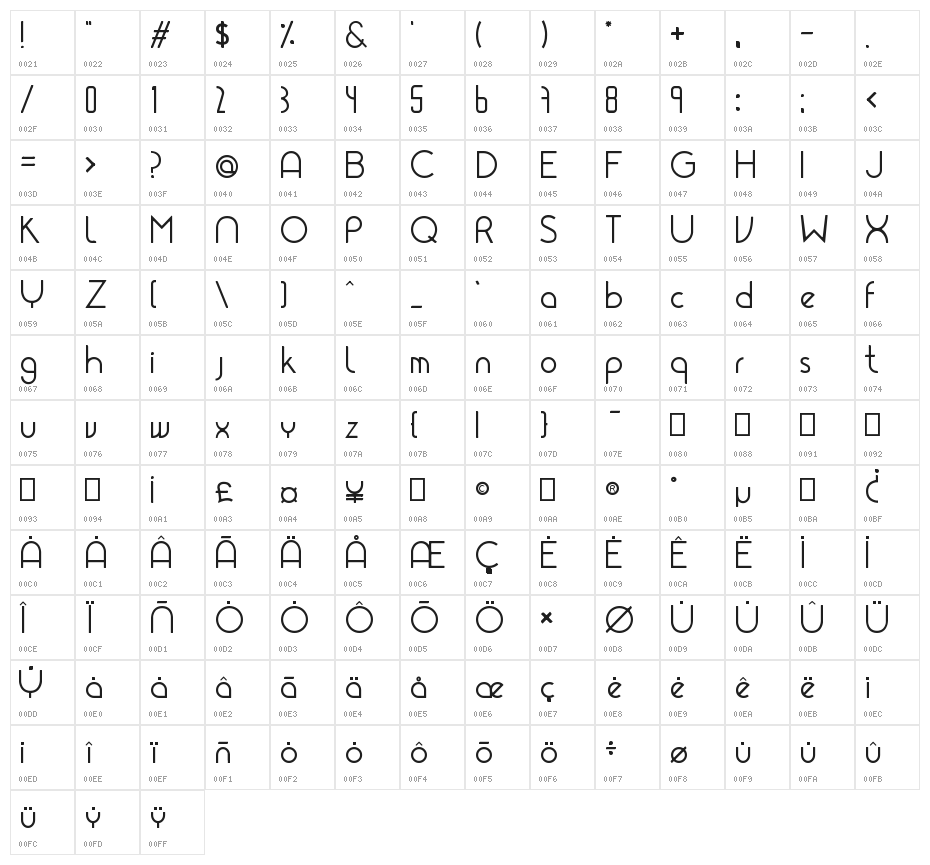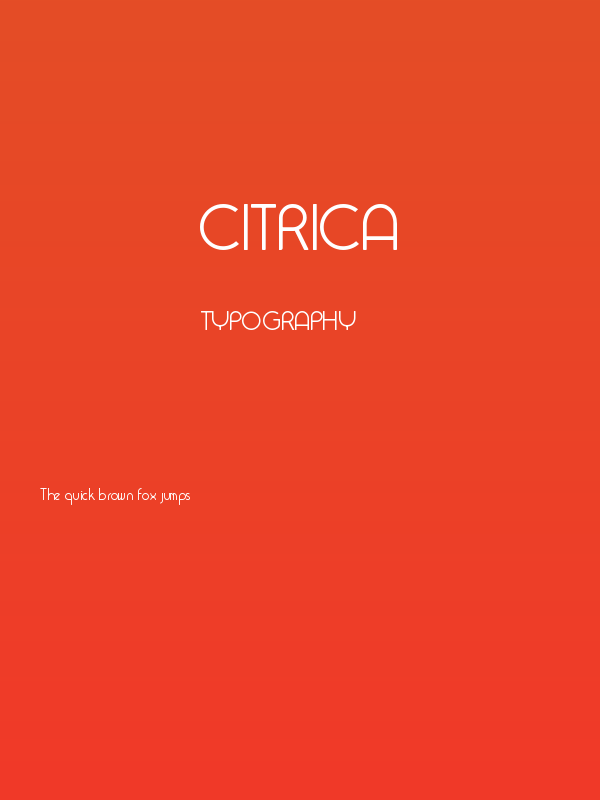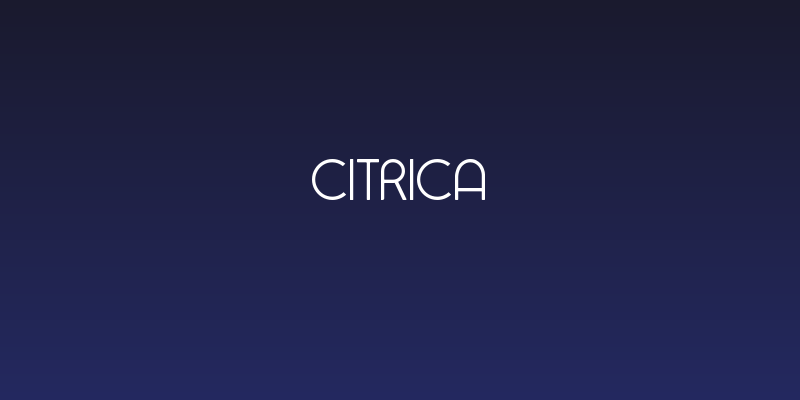
Citrica Font
Citrica Description
This font features a modern and geometric design with clean lines and a minimalist aesthetic. The characters are composed of simple, rounded shapes that convey a sense of clarity and precision. The uppercase letters are uniform in height, while the lowercase letters maintain a consistent x-height, contributing to its readability. The numerals are distinct and align well with the overall style, making them suitable for various applications. Special characters are designed with the same geometric principles, ensuring a cohesive look across all glyphs. The font's simplicity and elegance make it versatile for both digital and print media.